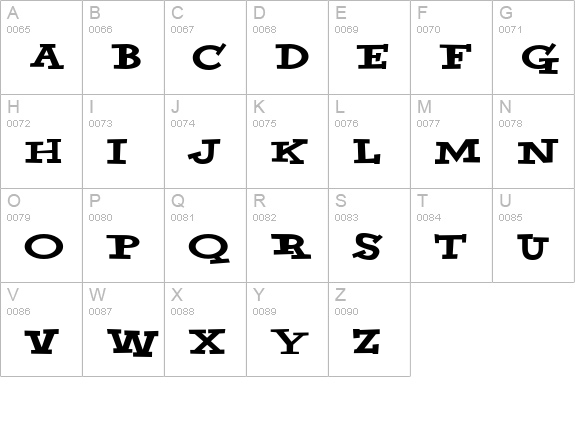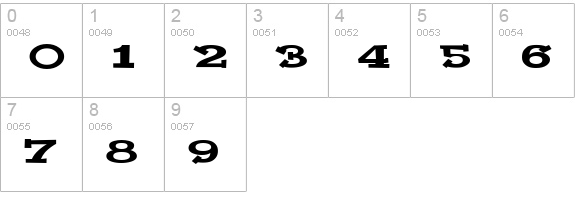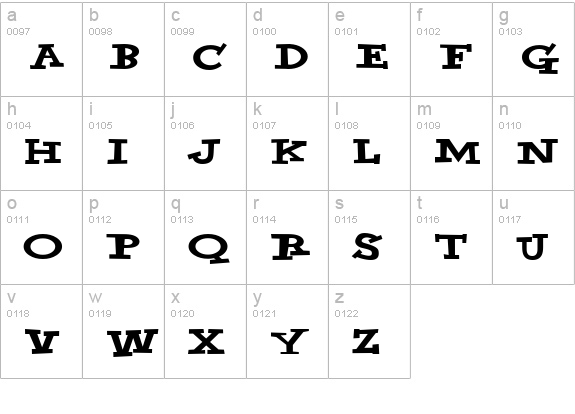
Yahoo!© Font Details
The Yahoo!© font is a sleek and modern typeface that exudes a sense of innovation and sophistication. With its bold yet elegant design, this font is perfect for making a statement in any project or design. The Yahoo!© font is freely available to download at FontsMarket.com, allowing you to easily access this versatile and eye-catching typeface for all your creative needs. Whether you're designing a website, creating a logo, or crafting a stylish presentation, the Yahoo!© font is sure to impress with its clean lines and contemporary style. Elevate your designs with this stunning font today!